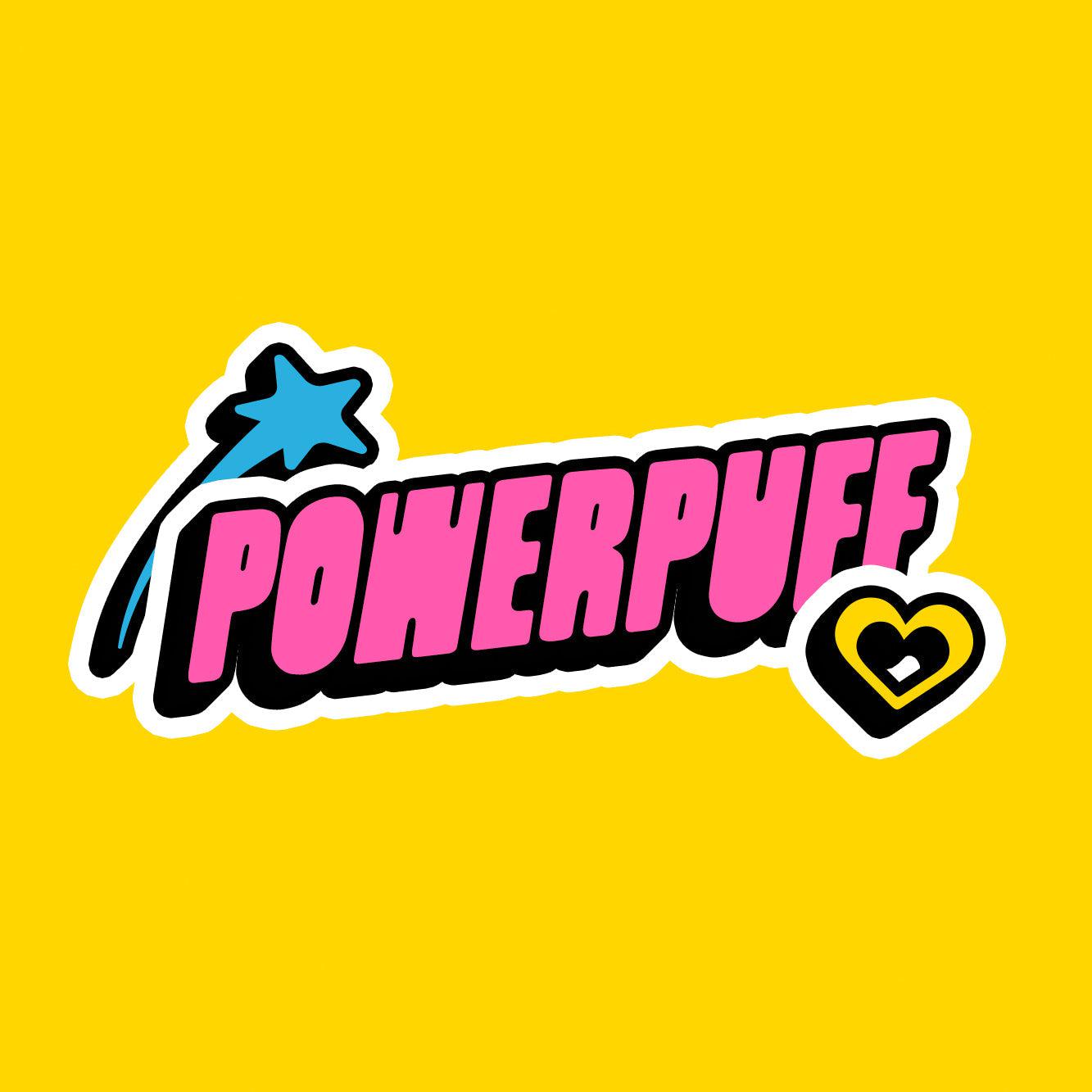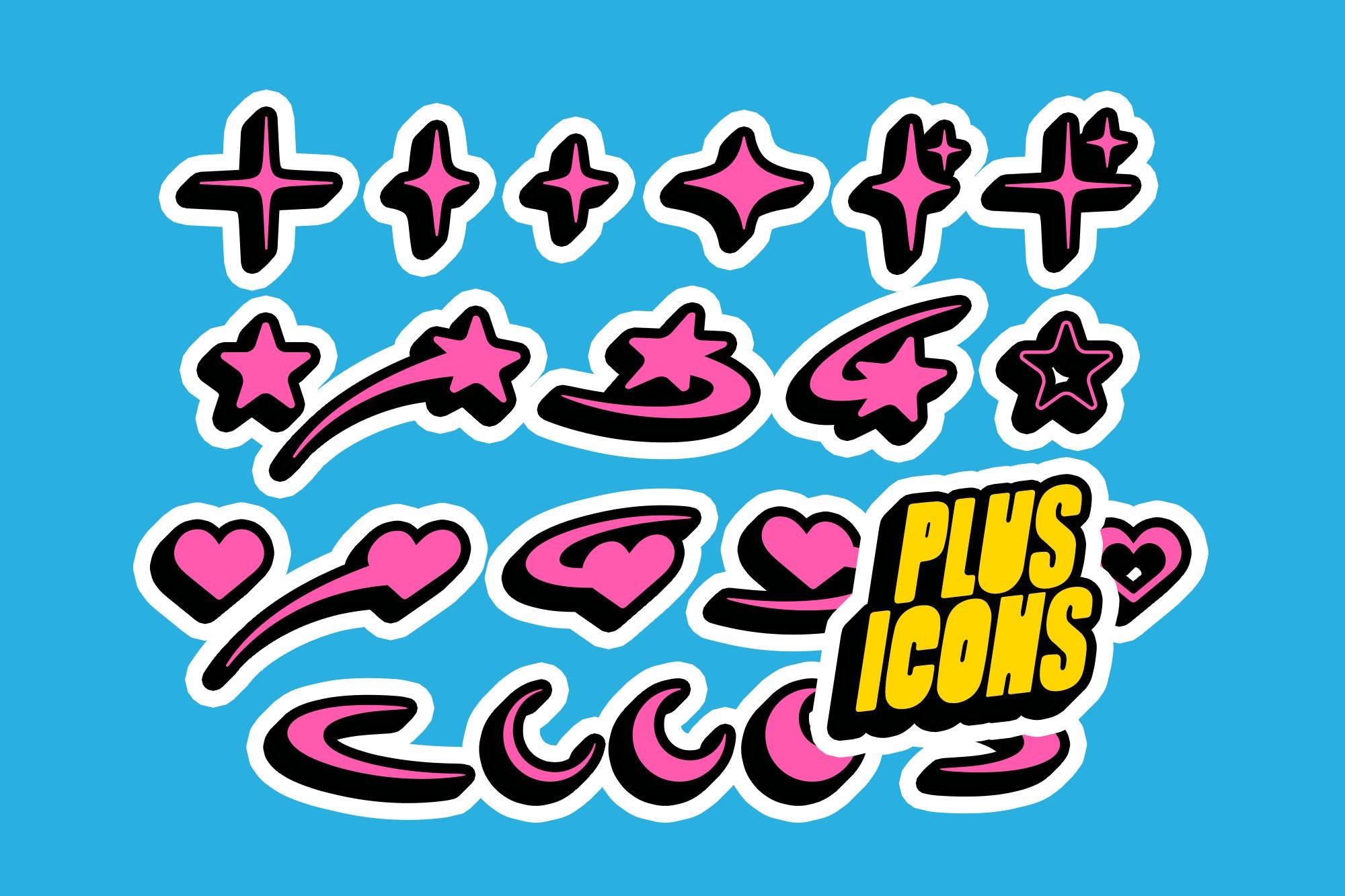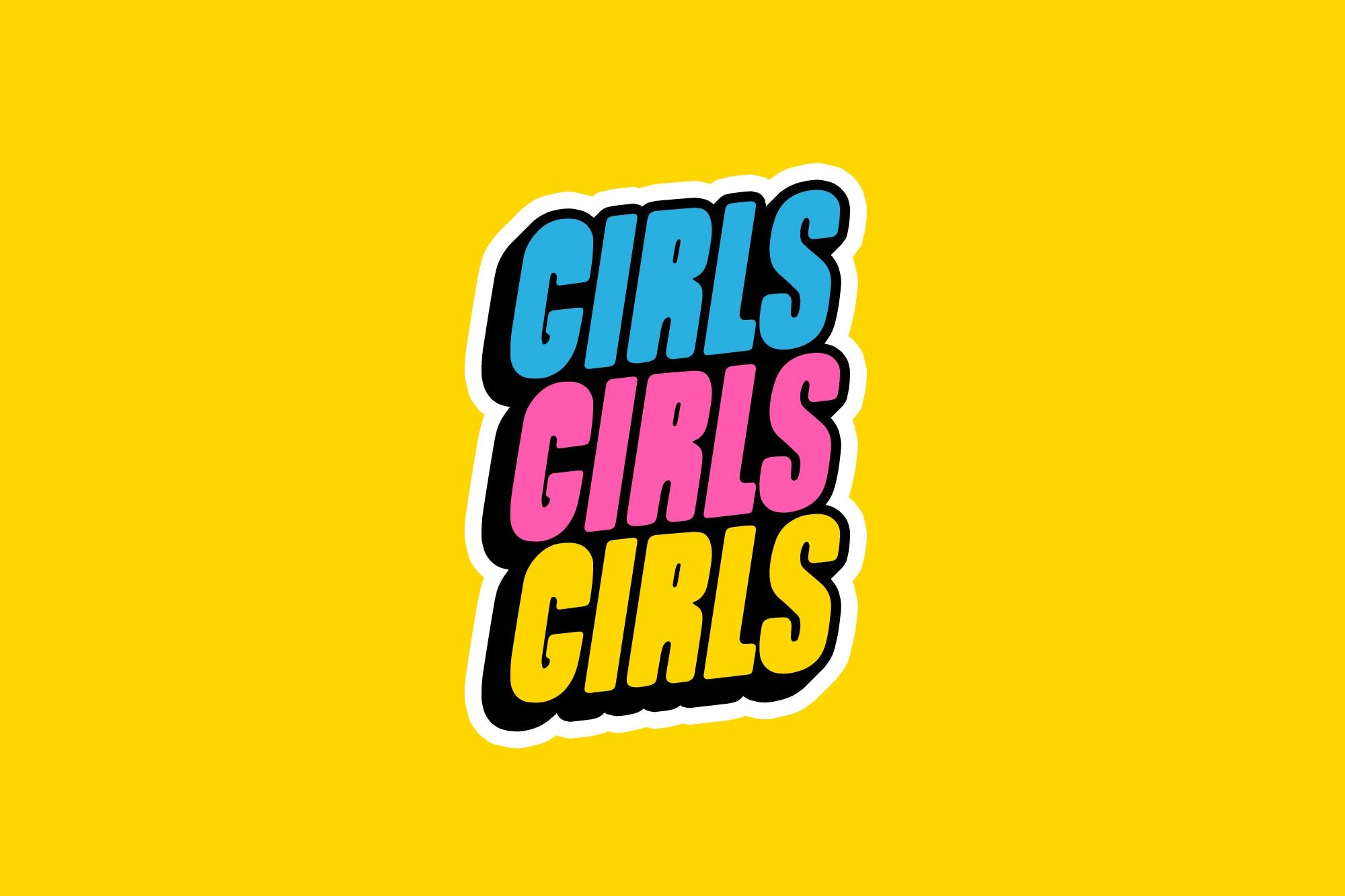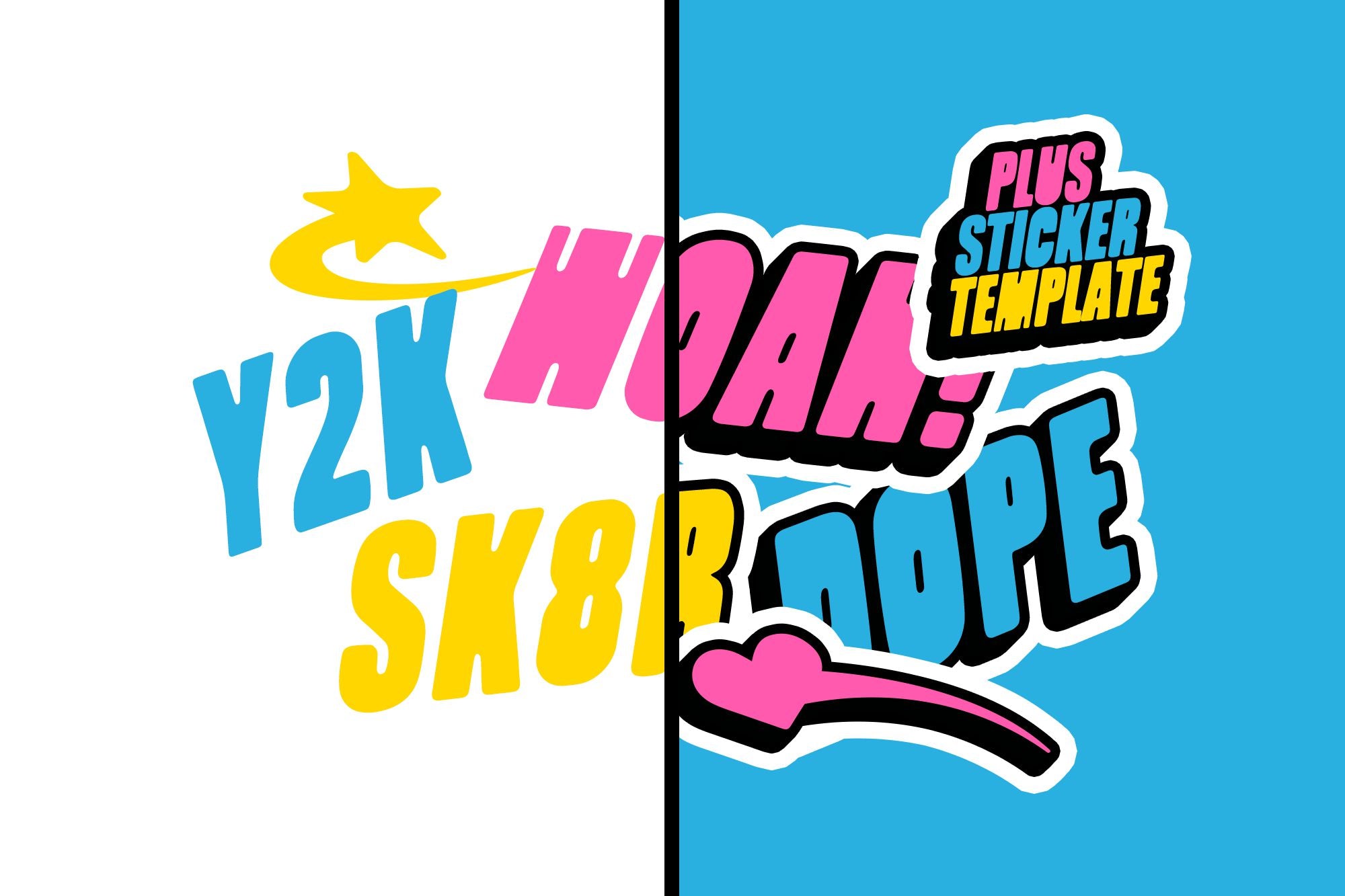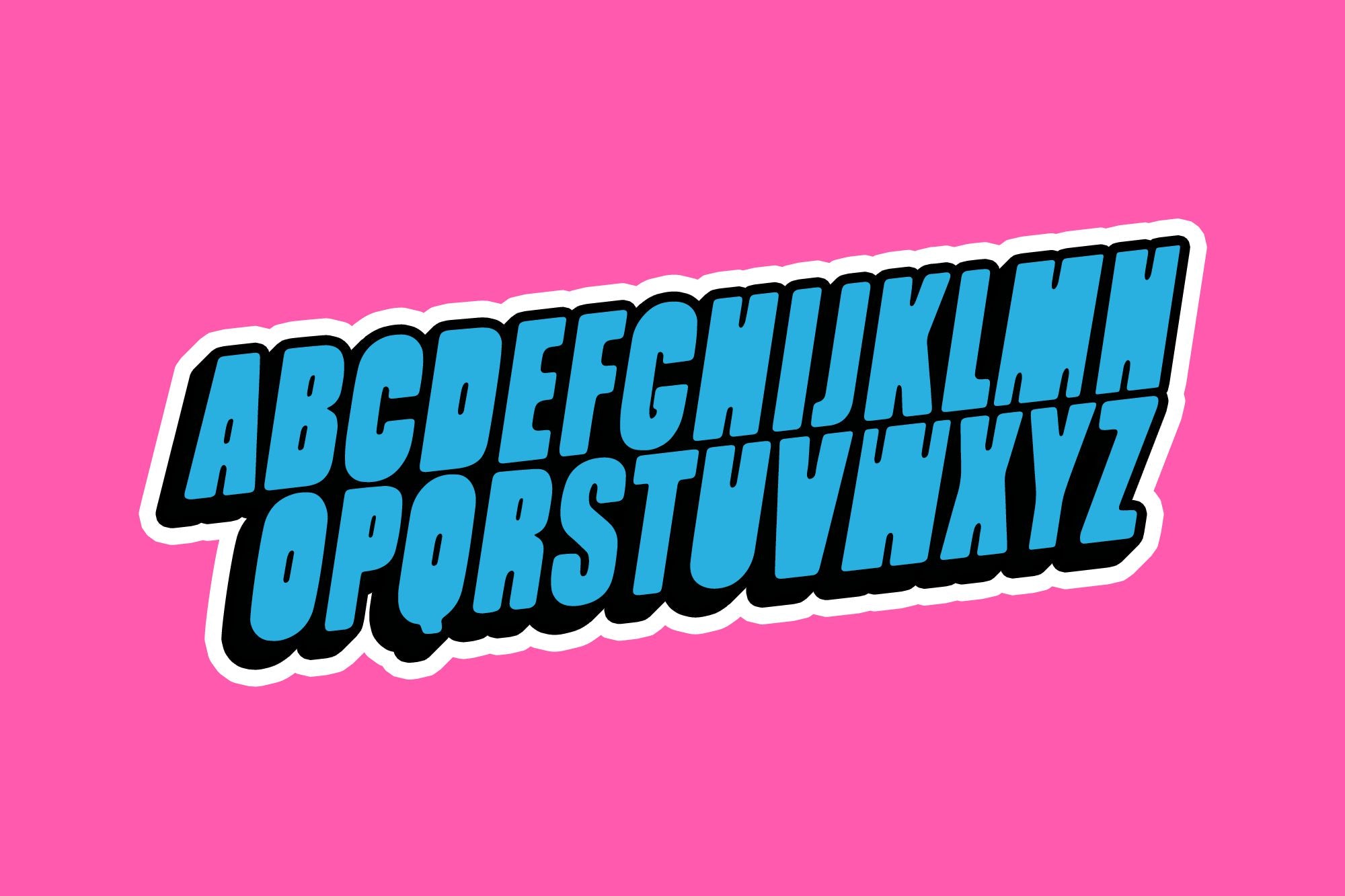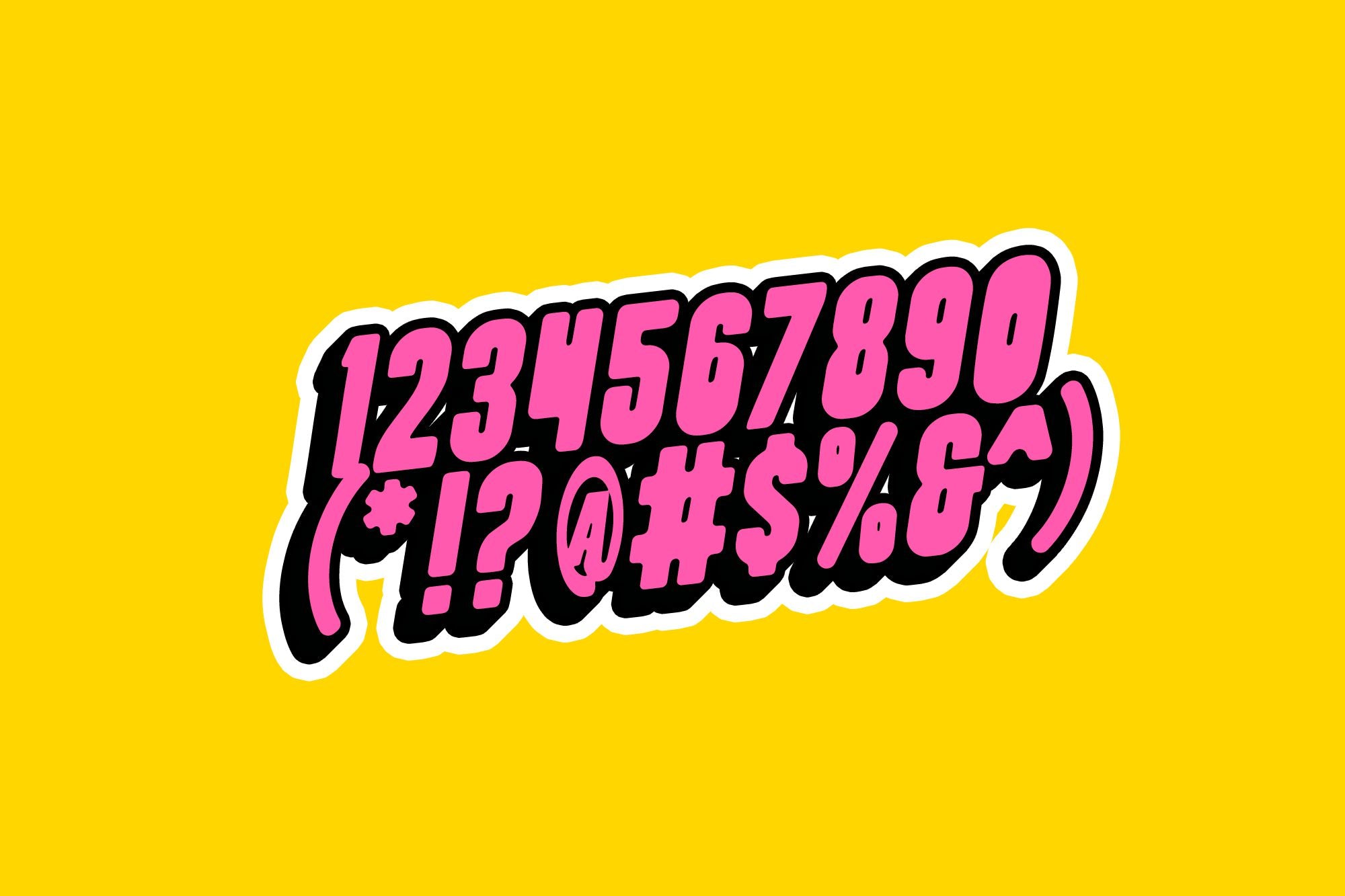
Powerpuff - Display Font
The Powerpuff Display Font is a vibrant, retro-inspired font that includes all letters, numbers, and standard special characters in an easy-to-use .otf file. The product also includes a Y2K style icon pack with 22 vector icons and a .psd sticker template.
Ideal for retro-inspired graphic design and Y2K aesthetics. Perfect for posters, branding, website headers, and sticker designs, ensuring vibrant and eye-catching visuals that evoke nostalgia.